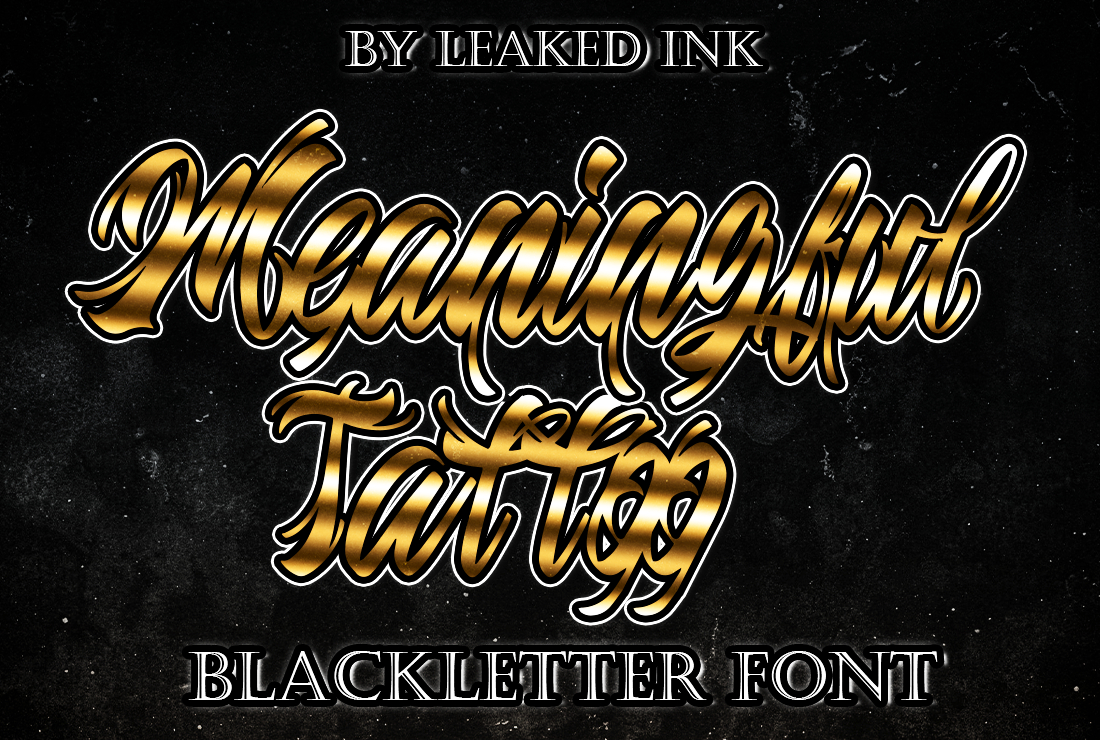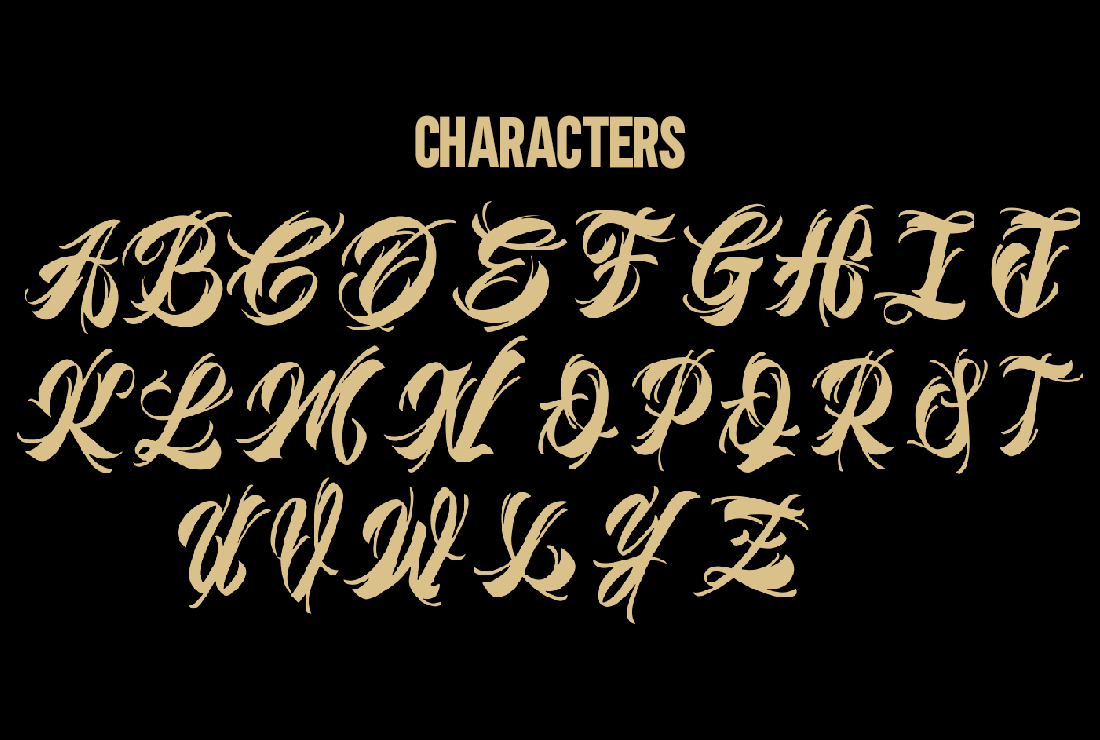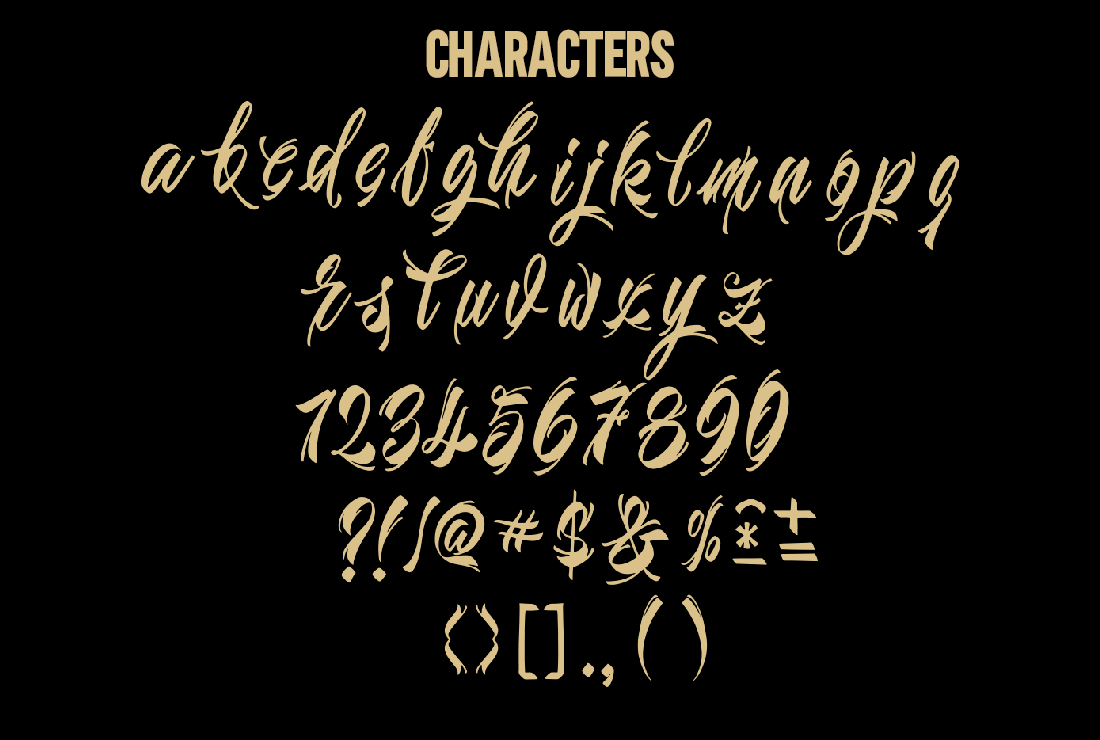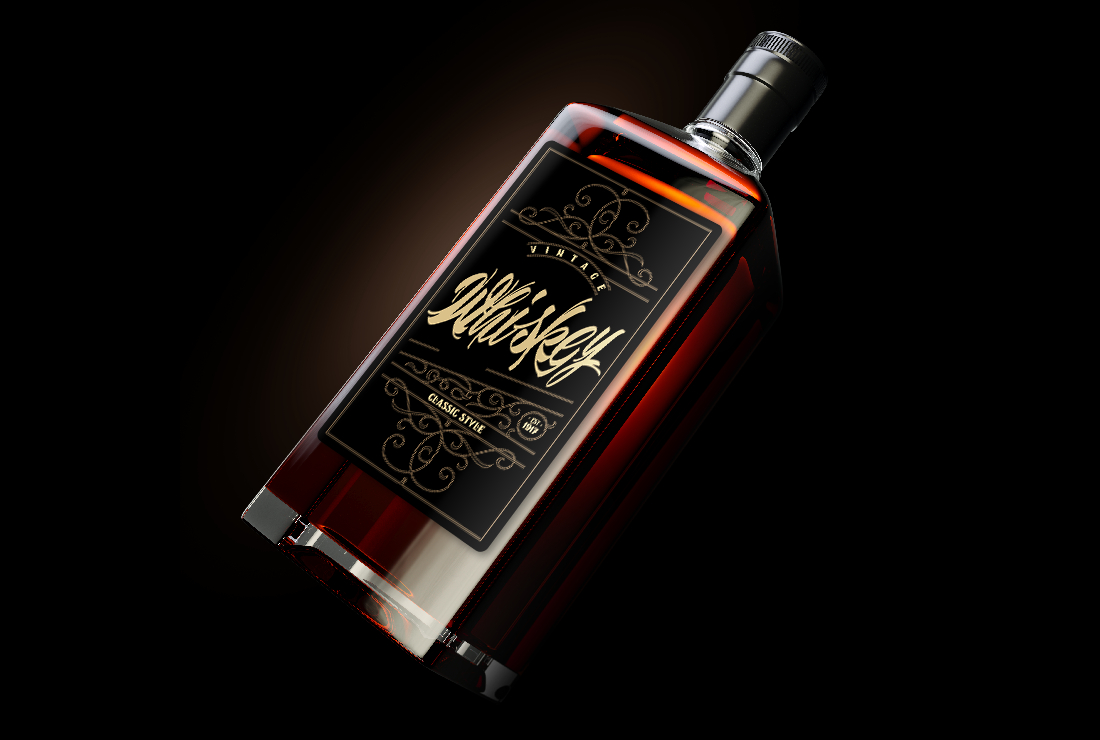
Meaningful Tattoo Font
About Meaningful Tattoo Font
Introducing Meaningful Tattoo, a striking blackletter font that will take your designs to the next level. Inspired by the intricate art of tattooing, this font has a bold and dramatic presence that demands attention. Its sharp, angular strokes give it a powerful, edgy feel that is perfect for expressing strength, passion, and individuality.